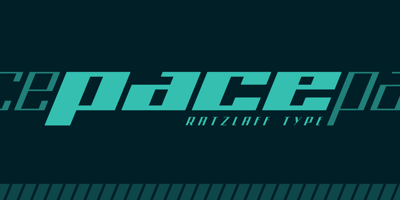
Pace
Pace font
Pace Font Family was designed by Leonardo Ratzlaff, Gabriel Ratzlaff and published by Ratzlaff Type. Pace contains 18 styles and family package options. Pace is a geometric minimalist typeface with a large range of weight options to suit multiple scenarios, from videogames to sports magazines. To inspire movement and speed, try the Slanted styles.